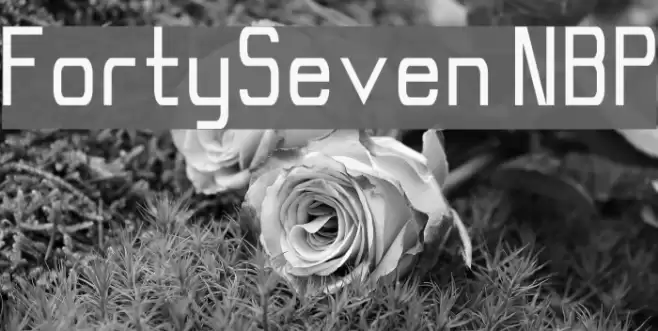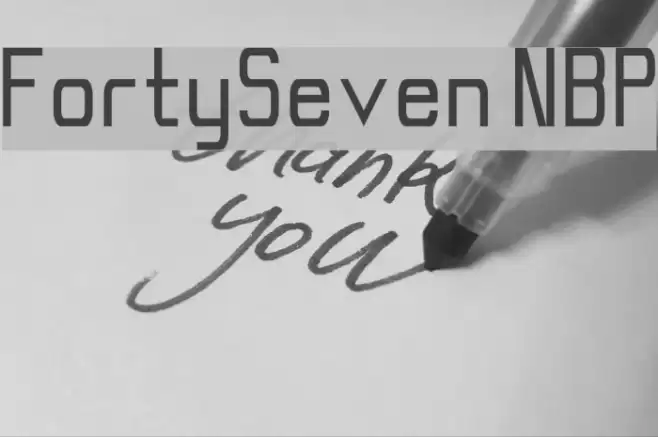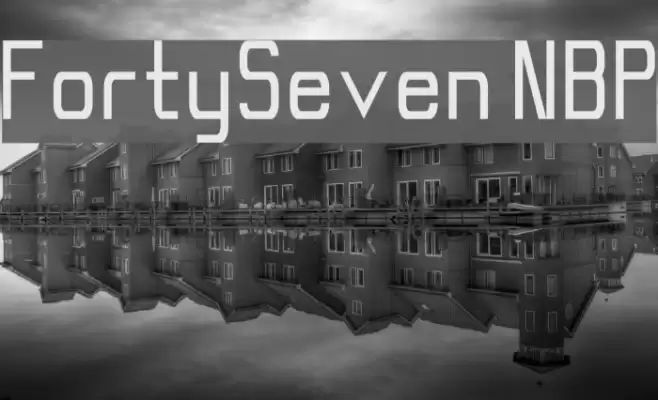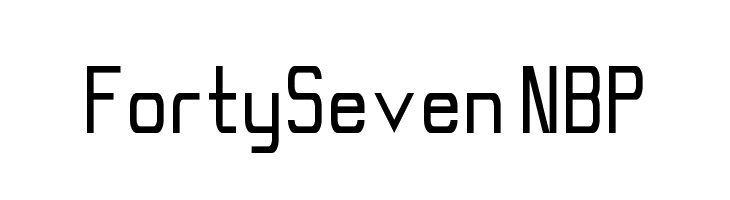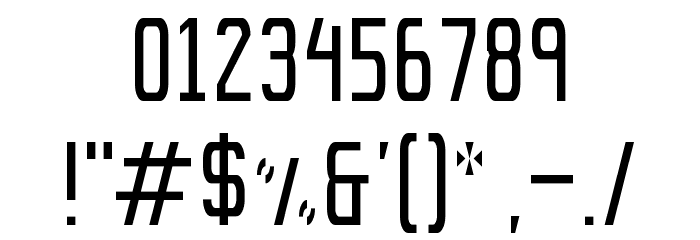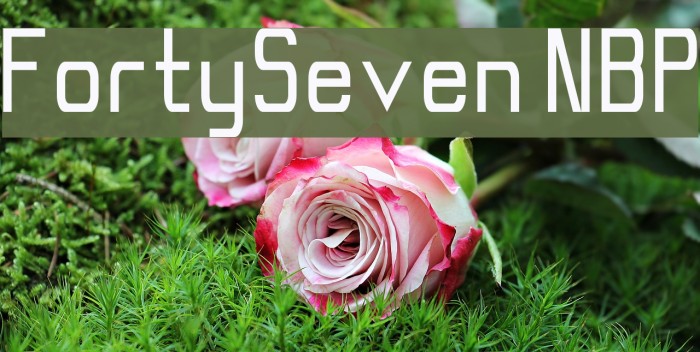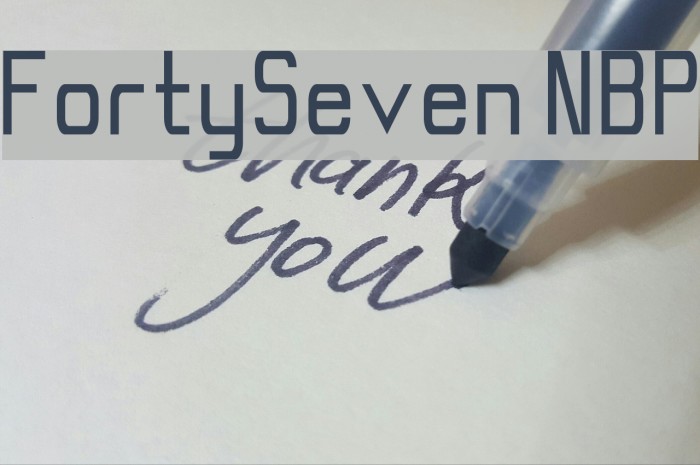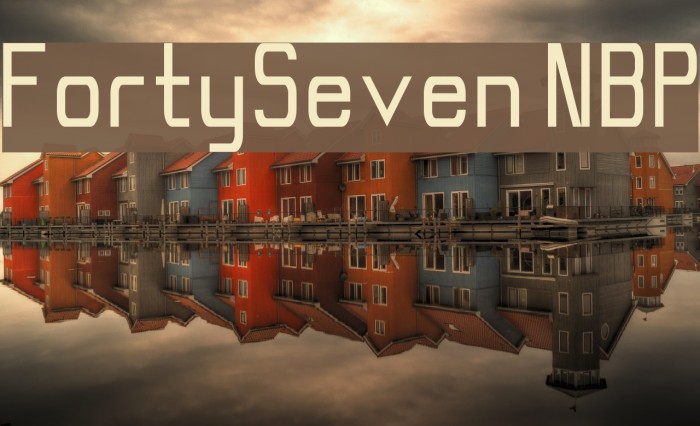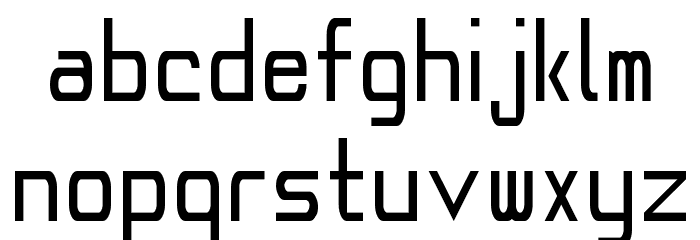
FortySeven NBP Font
FortySeven NBP Description
This font exhibits a modern and geometric style with a clean and structured appearance. The characters are uniform in width, creating a monospaced effect that enhances readability and precision. The uppercase letters are bold and assertive, while the lowercase letters maintain a consistent height and width, contributing to a balanced and harmonious look. The numerals are clear and distinct, making them suitable for technical or digital contexts. Special characters are well-defined, adding versatility to the font's application. The overall design is sleek and contemporary, making it ideal for projects that require a modern and professional aesthetic.
A modern, geometric font with a clean, monospaced appearance from Uncategorized fonts.
- Proposed Projects: Ideal for coding environments, technical documents, digital interfaces, and modern branding projects.
- Use Case: Headlines, Body text, Logos, Technical documents